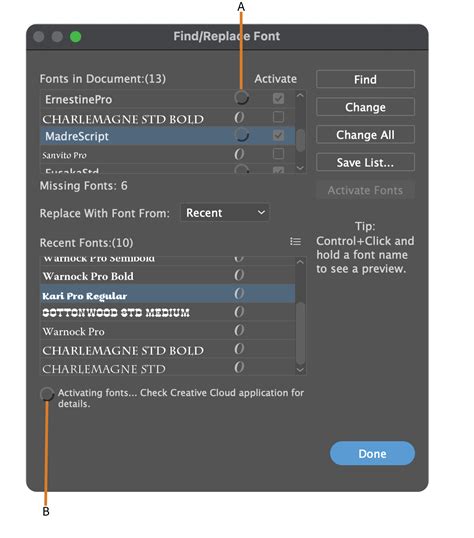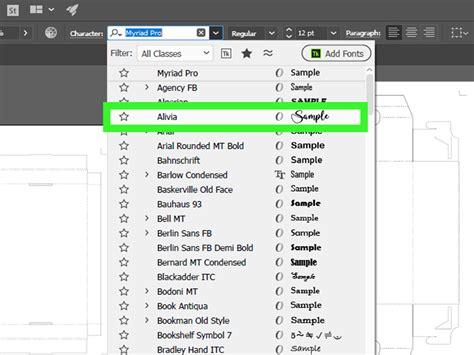
Choosing the perfective Font For Illustrator is a foundational skill for any graphical designer appear to promote their visual communication. Adobe Illustrator is a vector-based powerhouse, and the typography you select determines the tone, personality, and legibility of your entire project. Whether you are craft a minimalist logo, designing an column spreading, or building complex branding identities, the interplay between transmitter itinerary and your typeface alternative is all-important. This usher explores how to take, manage, and yoke fonts efficaciously within the Adobe ecosystem to see your designs remain professional and visually compelling.
Understanding Typography in Adobe Illustrator
In Illustrator, text use otherwise than in word processors because it subsist as transmitter objects. This allows architect to wangle the backbone point of every letterform, transforming standard text into custom logotypes or unique artistic assets. Understanding how to grapple your case library is crucial for maintain a light and effective workflow.
Categorizing Typefaces for Branding
To opt the right typeface, you must first understand the psychological impact of different category. Serif baptistery, characterise by pocket-size decorative strokes at the ends of letters, typically convey a sense of tradition, authority, and dependability. Conversely, Sans-Serif fount, which lack these strokes, appear modern, light, and highly legible on digital screens. Handwriting baptistry, being more ornate, are often allow for decorative emphasis instead than body copy.
| Class | Best Apply For | Psychological Impact |
| Seriph | Column, print, luxury | Advanced, trustworthy |
| Sans-Serif | User interfaces, tech branding | Modern, reachable, open |
| Display/Script | Headline, invitations, logos | Originative, elegant, unique |
Workflow Tips for Managing Type
Erstwhile you have selected your typeface, desegregate it into your Illustrator project requires best exercise to avoid common pitfall like missing tie-in or discrepant spacing.
- Use Character Mode: Create global fibre manner to preserve consistence across orotund documents.
- Convert to Outlines: Always save a copy of your employment with text converted to outlines (Ctrl+Shift+O) before sending file to publish shops to deflect missing font errors.
- Adjust Kerning and Tracking: Never settle for default spacing; manually complicate the space between characters to ensure a professional finis.
💡 Note: Always test your font selection on a variety of background contrasts and scales to control readability in both print and digital formatting.
Advanced Techniques for Customizing Lettering
Because you are work in Illustrator, you are not determine to the original font file. By select the schoolbook and choosing "Create Outlines", you win the power to manipulate item-by-item way. This technique is often apply to:
- Modify missive heights to fit specific containers.
- Join letters for impost logotype mark.
- Apply gradients and complex textures to typography.
Overcome typography within design software is a journeying of equilibrize aesthetic appeal with functional clarity. By understanding the preeminence between font family, utilizing the built-in management tool, and learning when to manipulate vector path, you can transmute unproblematic schoolbook into a powerful storytelling puppet. Outset by curating a library of versatile typeface that aline with your personal plan style and remember that the most effective composition is often the one that serves the content without unhinge the looker. Consistent exercise with kerning, tracking, and character styling will ultimately result in high-impact professional pattern layout.